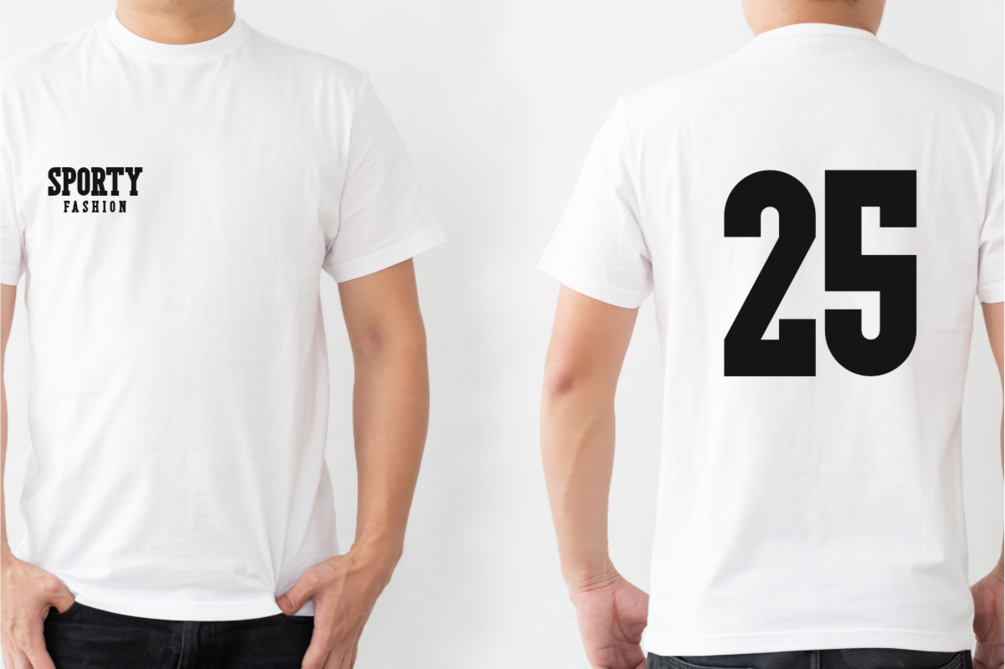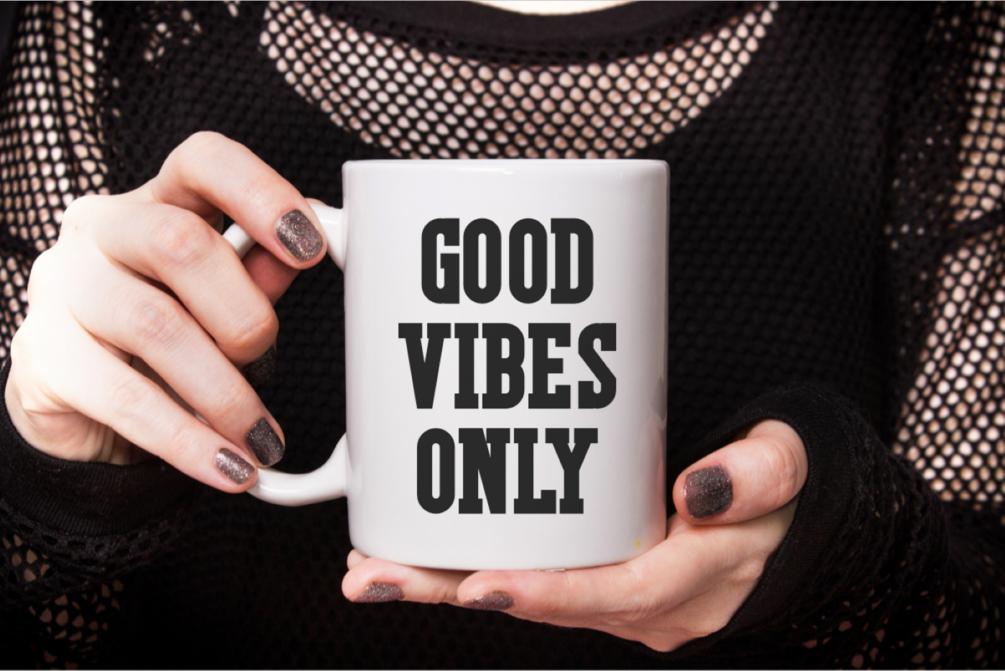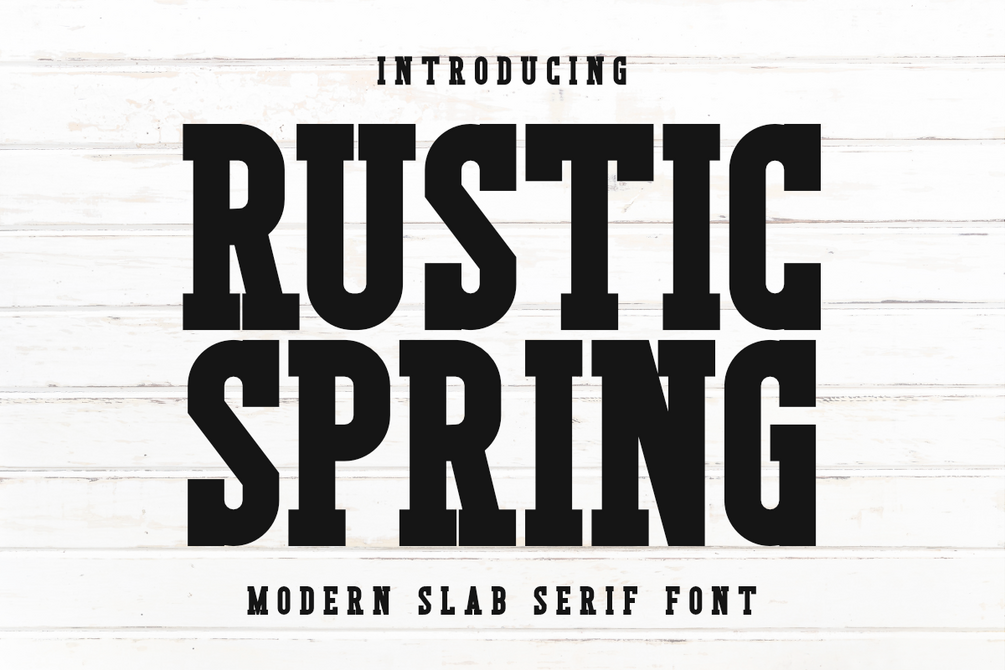
Rustic Spring - Modern Slab Serif
Rustic Spring is a bold and modern slab serif font with a strong, vintage-inspired look. Its solid shapes and sturdy serifs bring a perfect balance between classic charm and contemporary design β making it ideal for logos, posters, branding, product packaging, t-shirts, editorial headlines, and more.
This typeface adds a rustic yet professional touch to your design projects, giving them personality, power, and timeless appeal. Whether youβre crafting vintage labels, western-style designs, or modern branding, Rustic Spring is built to stand out beautifully in both print and digital formats.